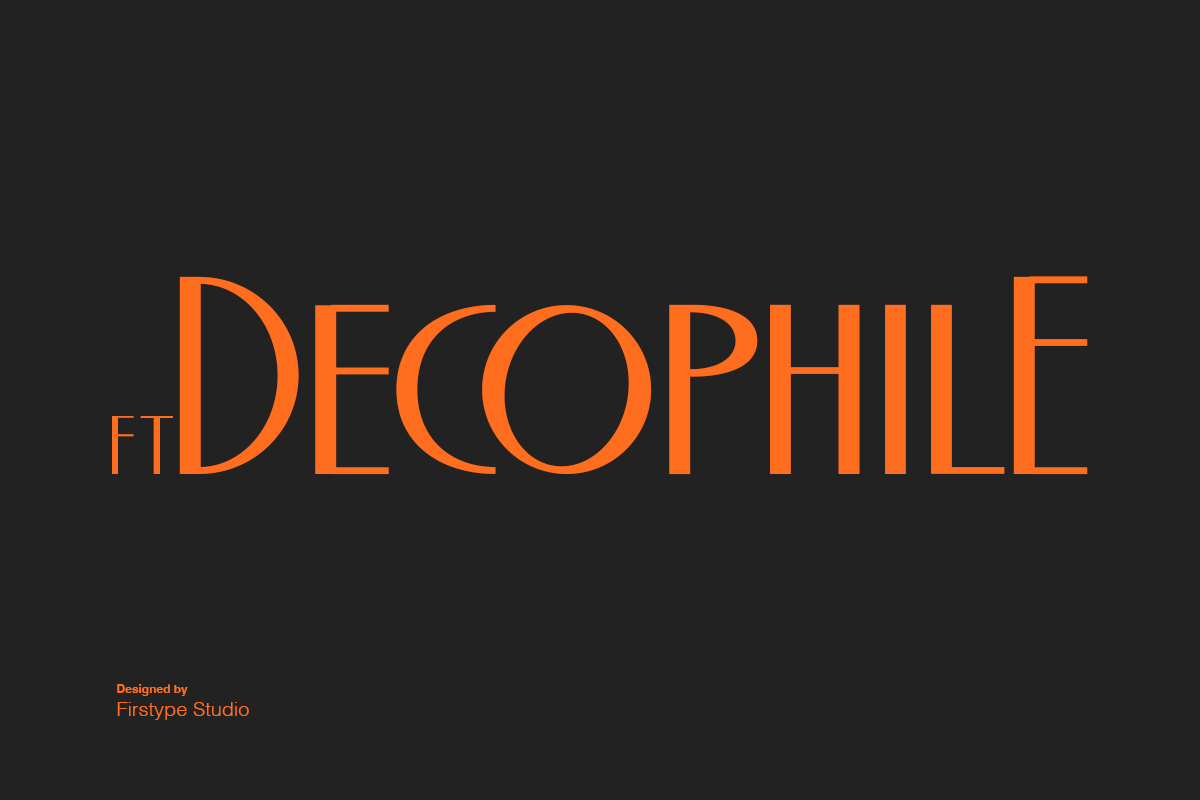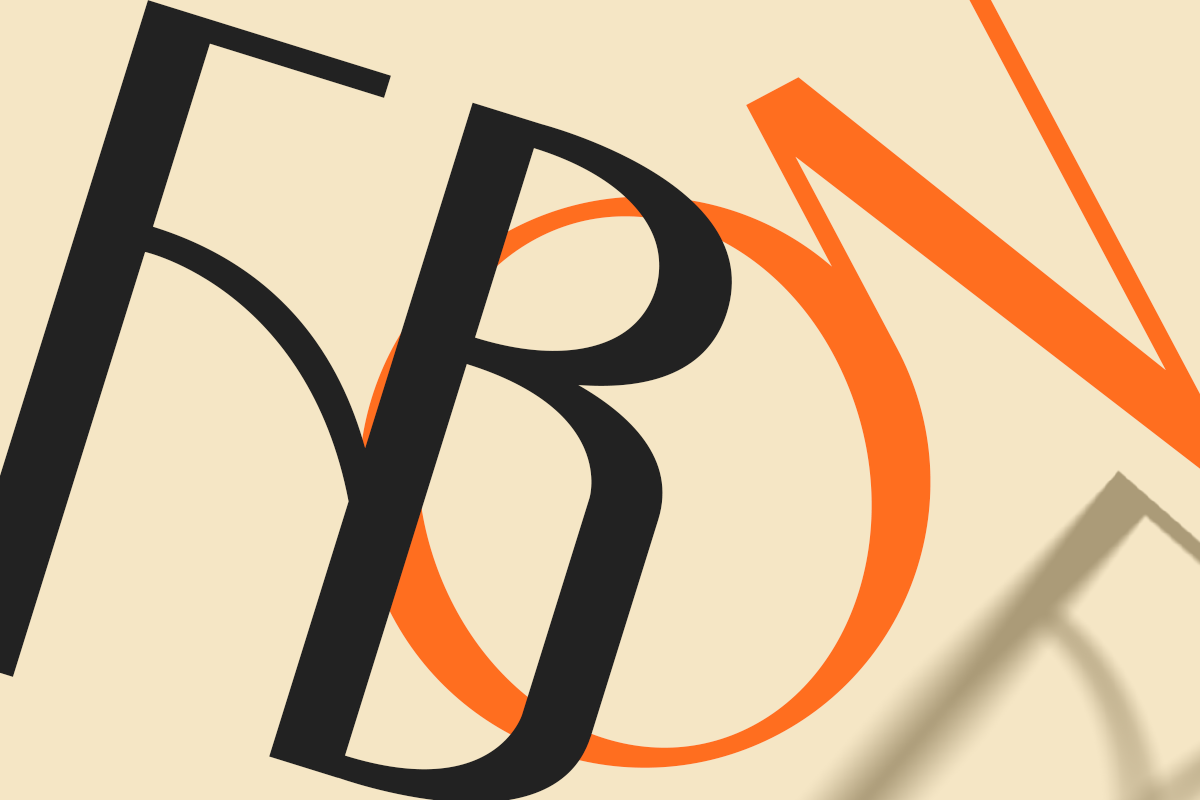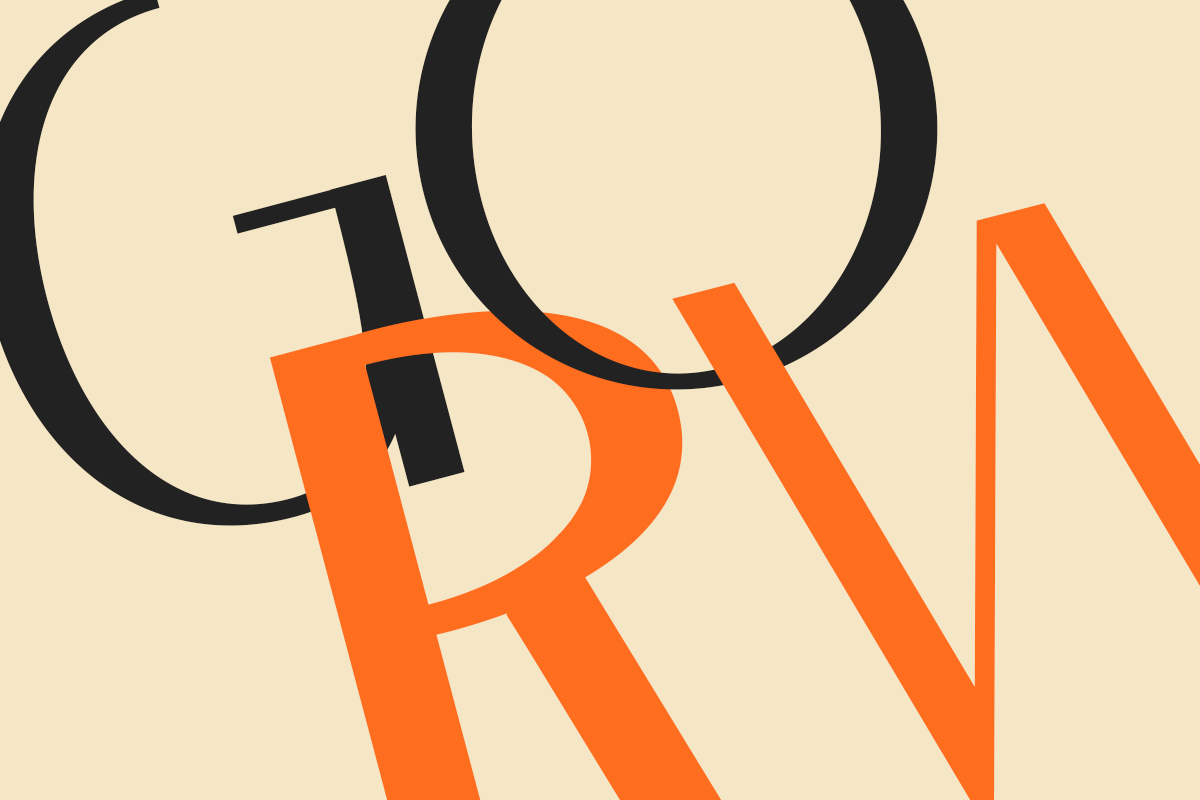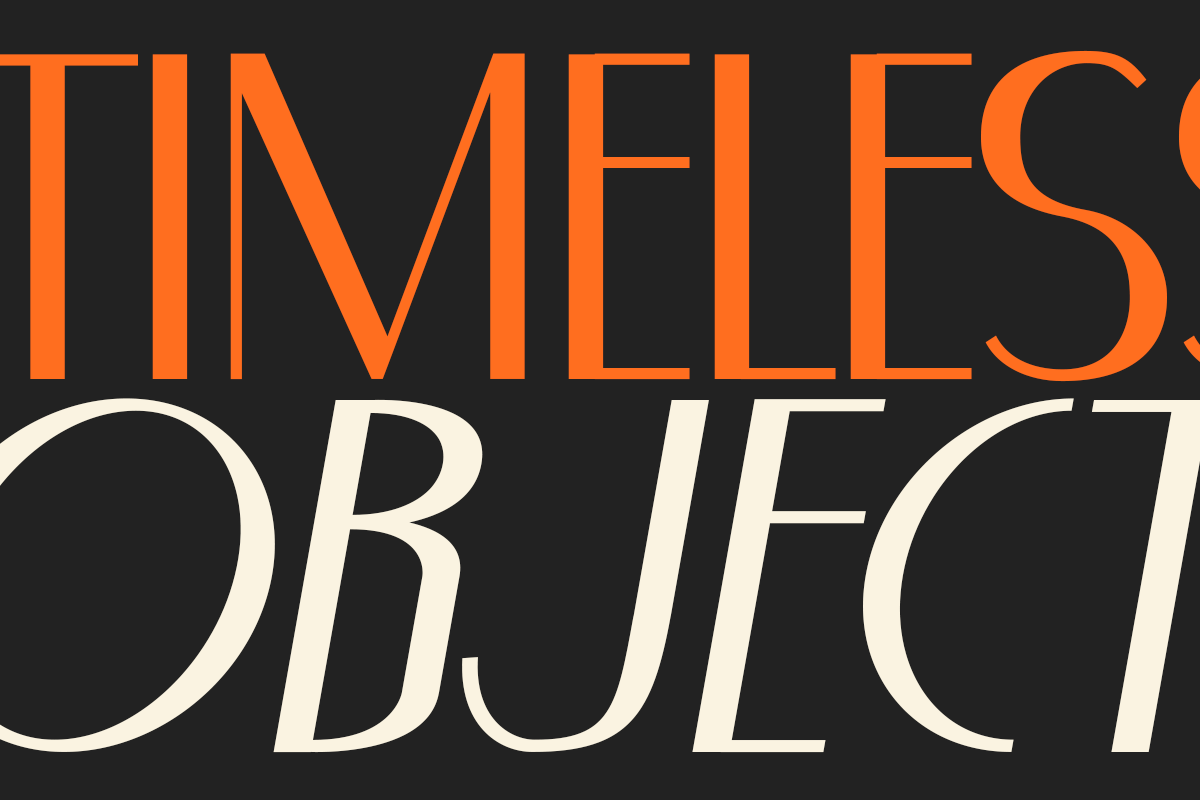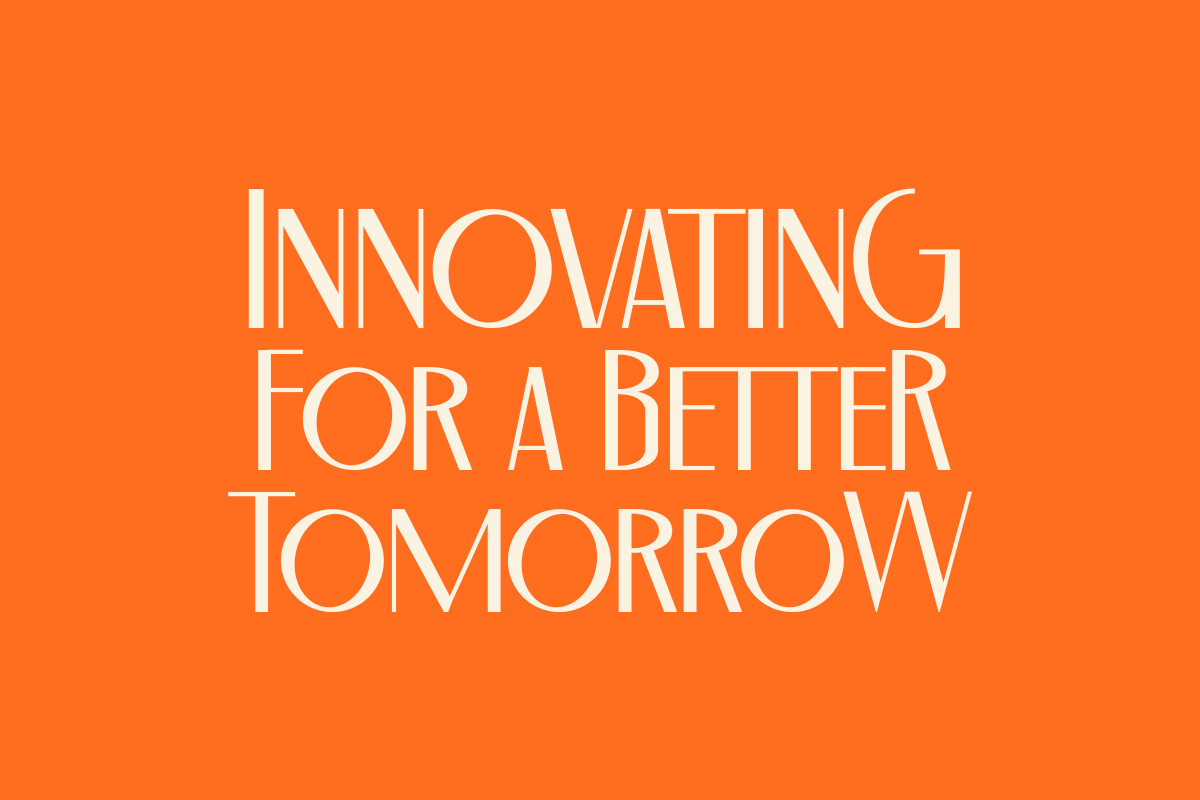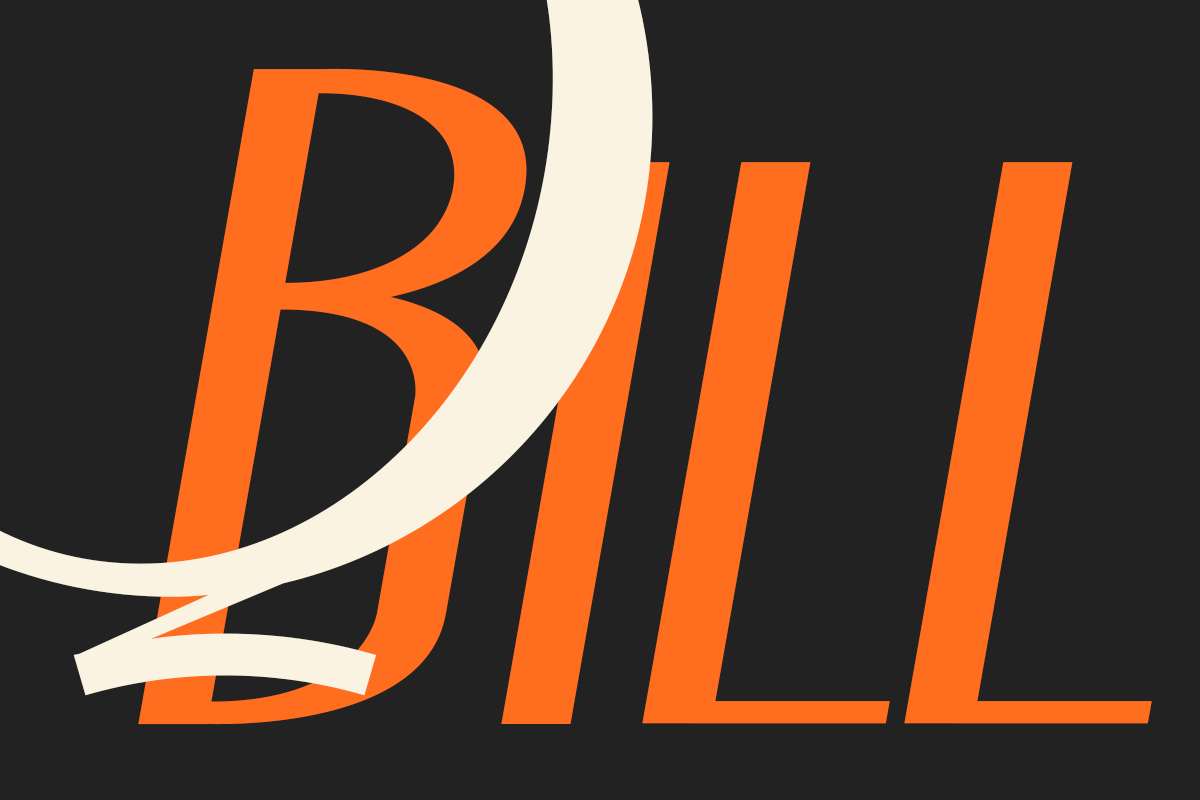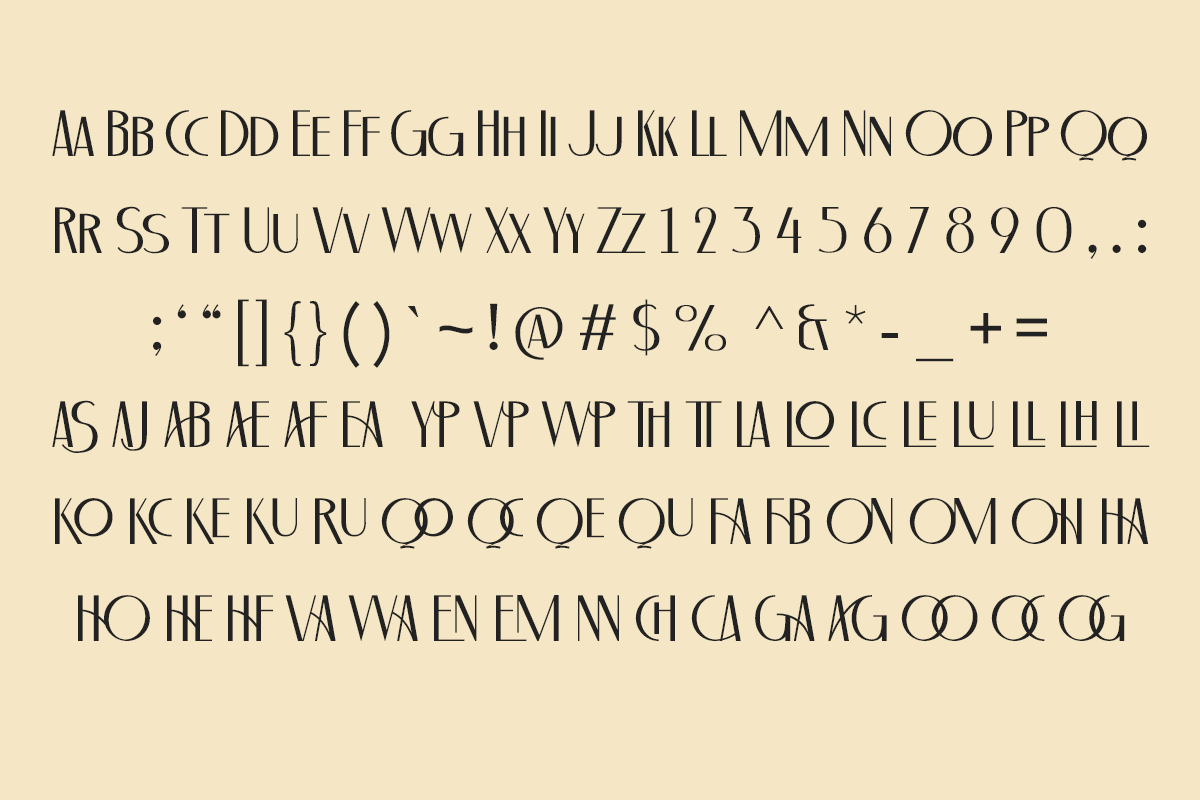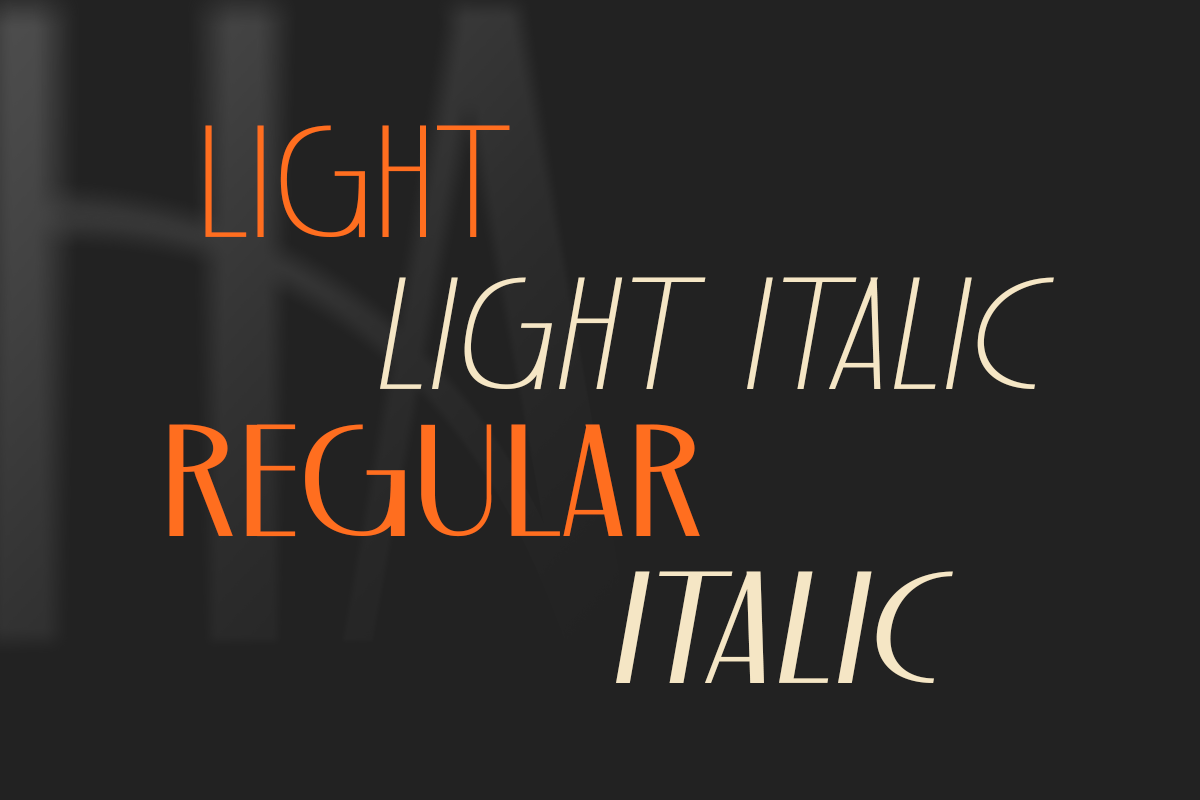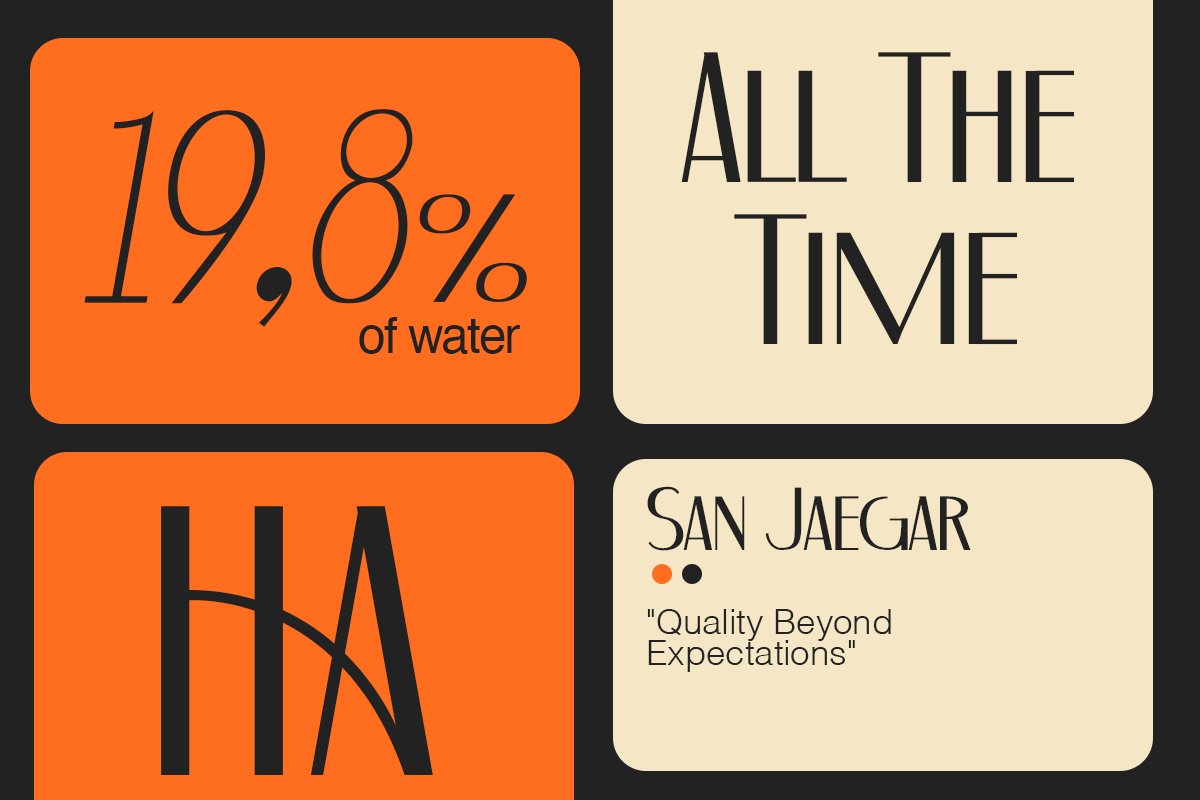
FT Decophile – Luxury Art Deco Serif Font for Elegant Branding
Firstype Studio
FT Decophile – Luxury Art Deco Serif Font for Elegant Branding
FT Decophile created by Firstype Studio is a luxury Art Deco sans serif font inspired by classic elegance and modern refinement. Designed for high-end branding, editorial layouts, packaging, and premium logos, this typeface delivers strong character with timeless sophistication.
✔ Perfect for logos, packaging & visual identity
✔ Vintage elegance with modern feel